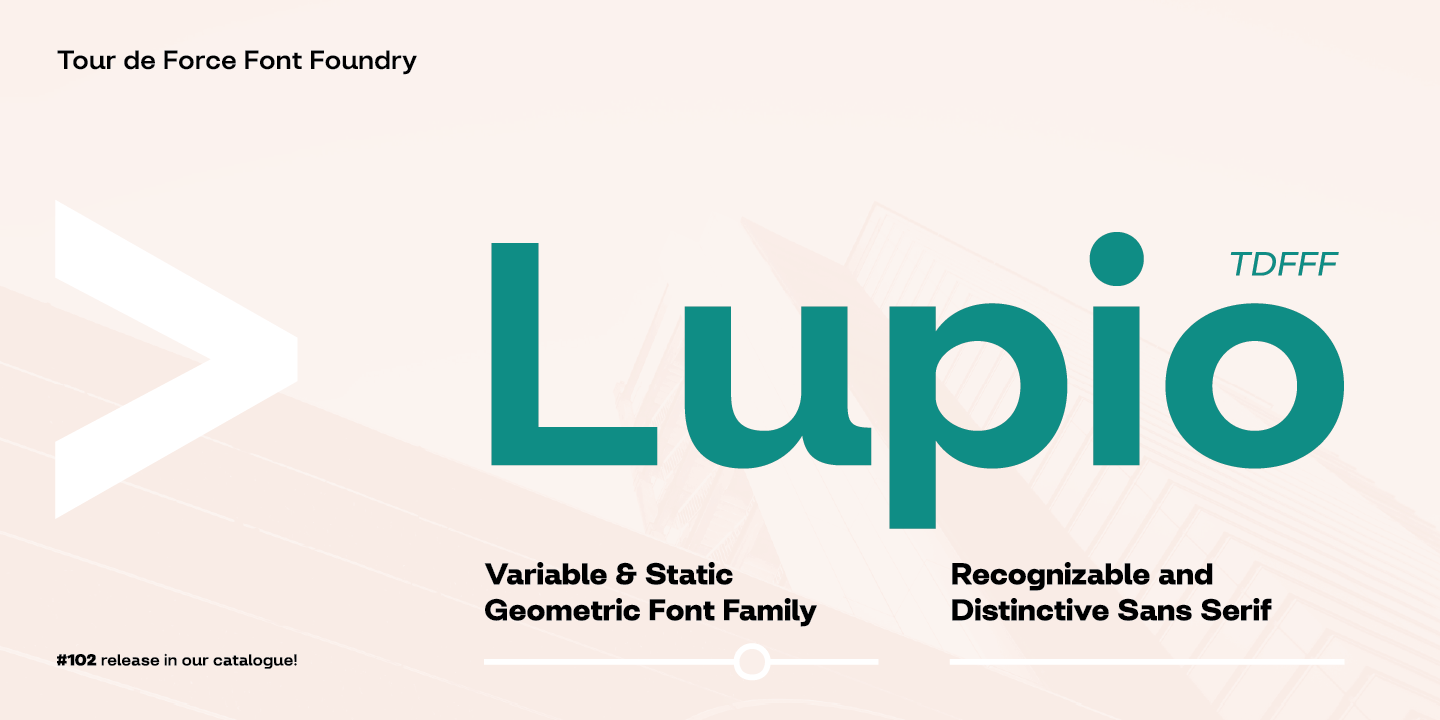
Lupio Font is ideal for creative branding projects, artistic publications, modern magazine layouts, contemporary advertising campaigns, fashion industry materials, design studio identity, innovative packaging design, cultural event promotions, experimental typography, and avant-garde visual communications that require distinctive character and artistic sophistication.
What makes Lupio Font truly exciting is its unique blend of contemporary design innovation and artistic expression that creates an instantly recognizable visual signature for creative professionals. This exceptional typeface features distinctive letterforms with carefully crafted details and modern proportions that convey both creative confidence and professional polish. The font's artistic personality and versatile character make it perfect for designers and brands seeking to establish a memorable visual identity that stands out in today's competitive creative marketplace.
The Lupio Font family includes multiple weights and styles: Light, Regular, Medium, Bold, and Display variations that showcase the distinctive artistic character. Each family member maintains the unique creative essence while offering flexibility for diverse design applications and visual hierarchies. The comprehensive character set supports extended language coverage and special design elements, making it suitable for international creative projects.
When you choose Lupio Font Free Download, you're selecting a typography solution that embodies contemporary creative excellence and artistic innovation. This distinctive typeface excels in applications where creative differentiation is essential, delivering exceptional visual impact while maintaining professional credibility. Whether you're designing brand identities, editorial layouts, advertising campaigns, or artistic publications, this font provides the creative sophistication and unique character that resonates with audiences who appreciate innovative design and artistic authenticity.